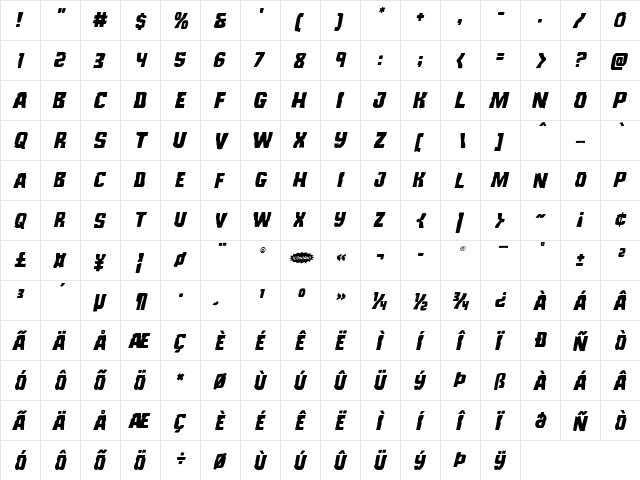
Monster Hunter Italic Italic
Design Context for Monster Hunter Italic Typeface
Monster Hunter Italic offers clean, dependable letterforms without strong stylistic allegiance, making it a practical choice for designers who need flexibility. The slanted form adds forward momentum and visual energy.
Pro Tip: Use Monster Hunter Italic for emphasis, pull quotes, and subheadings where its slanted energy can add rhythm to the layout.